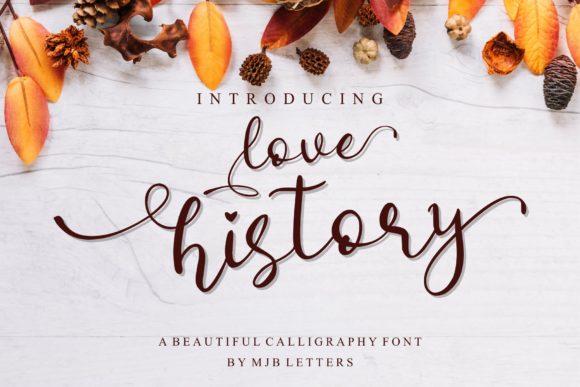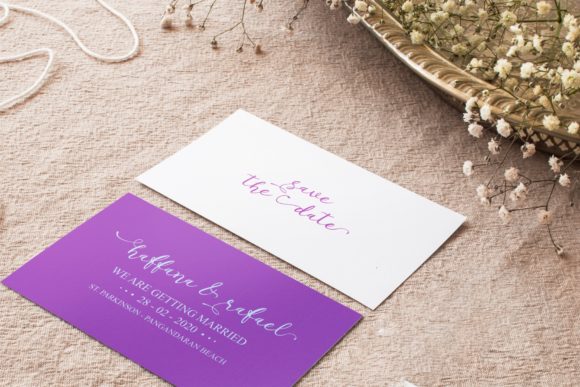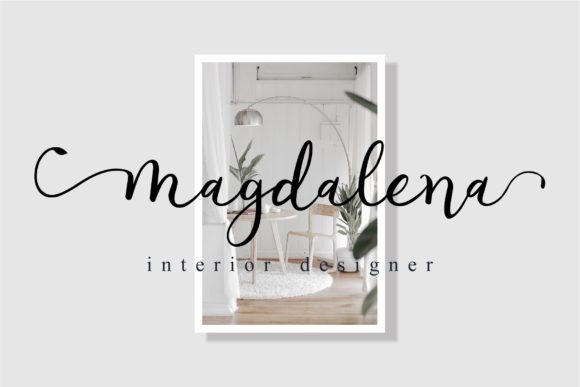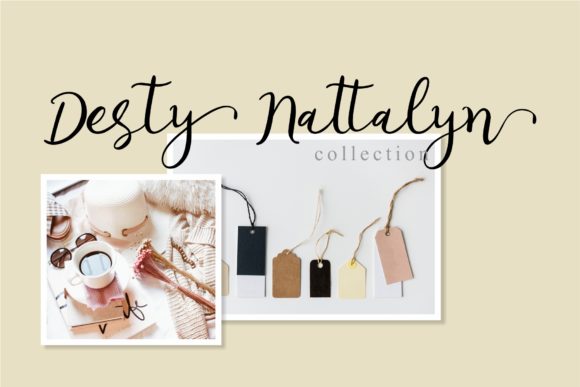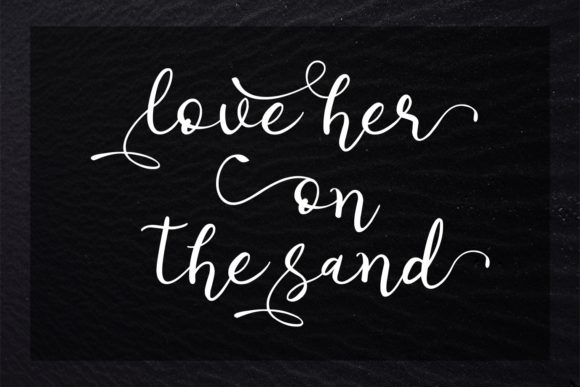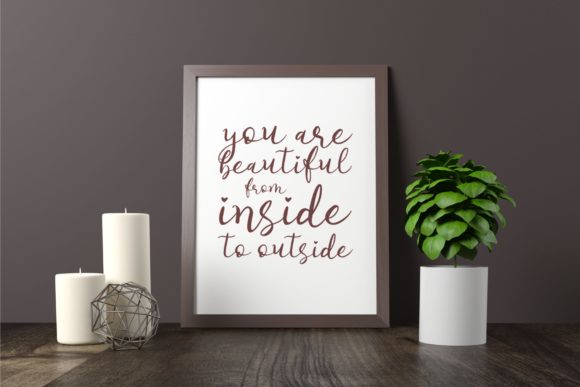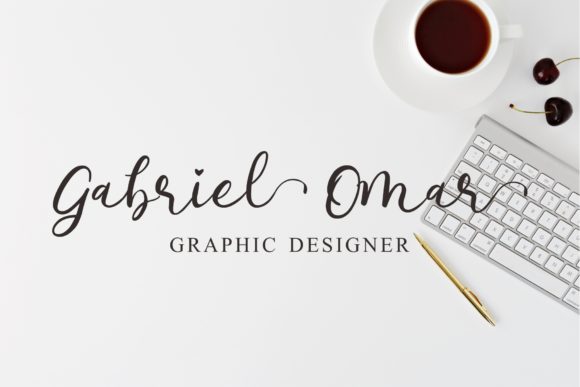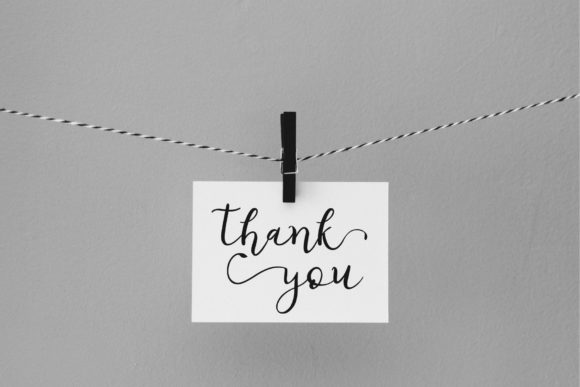
Love History Font
About Love History Font
The Love History is an elegant font. It has an original handwritten look and can be used to give a natural impression to your designs.
It can be used for logos, brochures, business cards, photography, and much more!